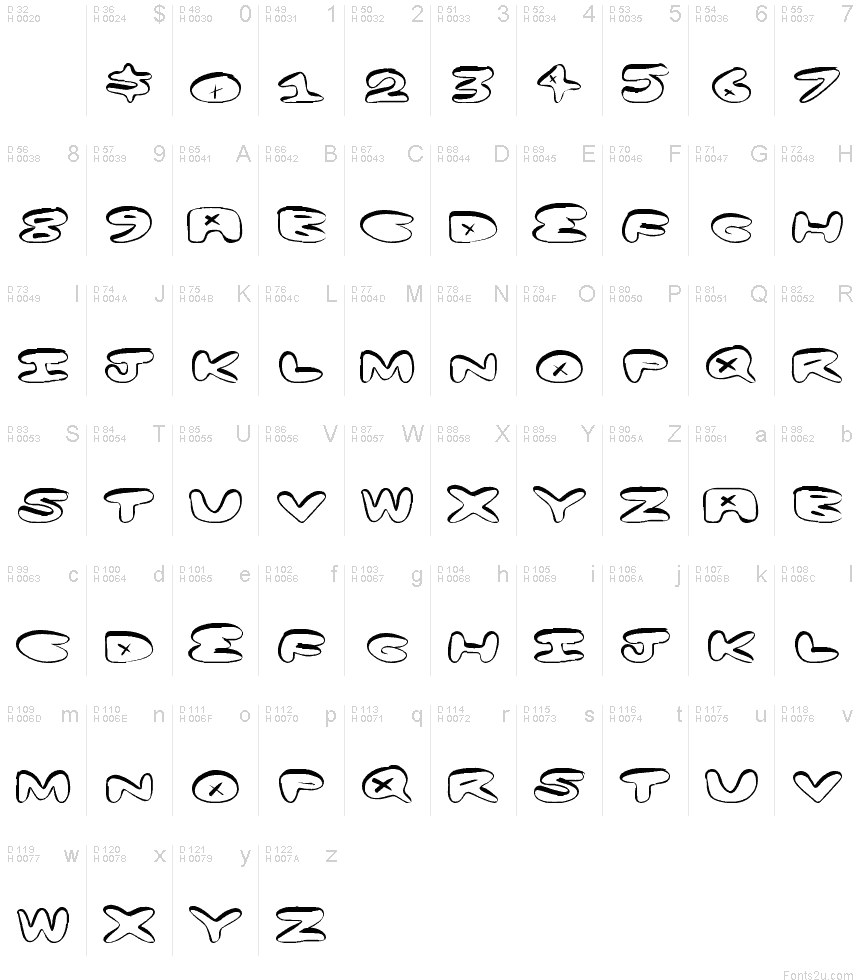
Minus Plus by Xerographer Fonts is a free cartoon display font drawn with loose, inflated outlines and broad, uneven letter shapes. Its rounded forms wobble between soft bubbles and quick marker sketches, with abrupt pinches and playful interior cuts keeping the alphabet lively.
A children's activity book is an apt home for this lettering, where its open shapes invite coloring and decoration. It also suits comic posters, toy packaging, and cheerful event graphics. In editorial design, the exaggerated silhouettes can turn section openers into small illustrations rather than neutral headings.